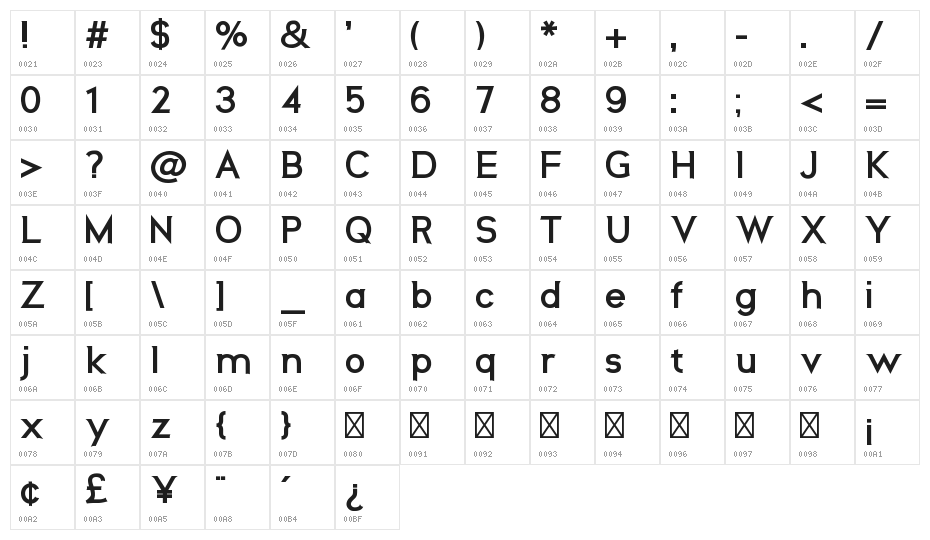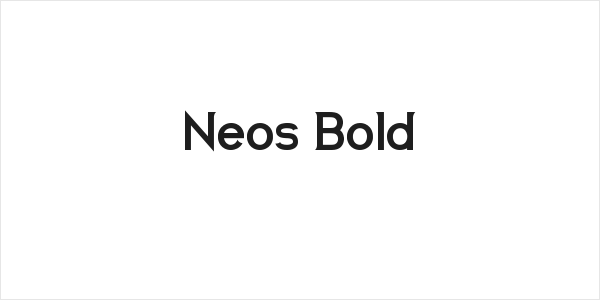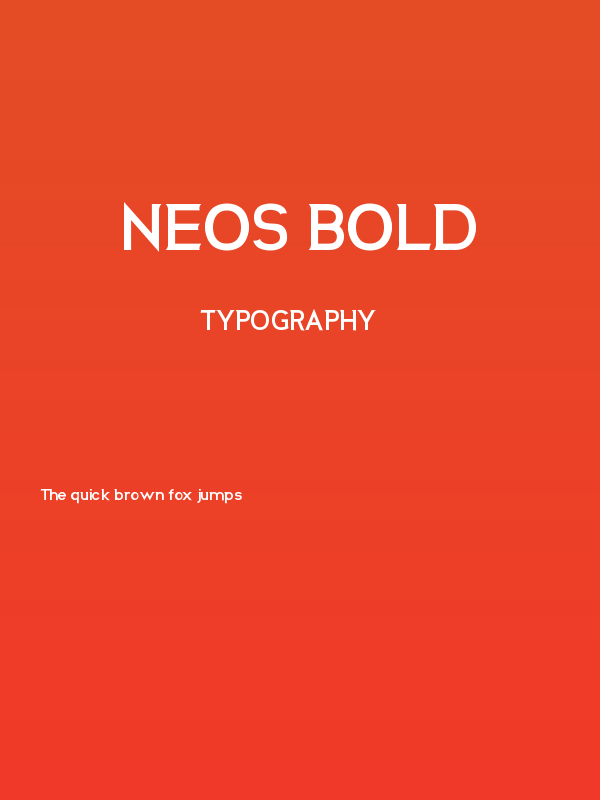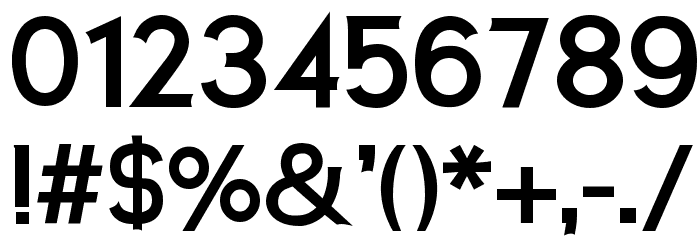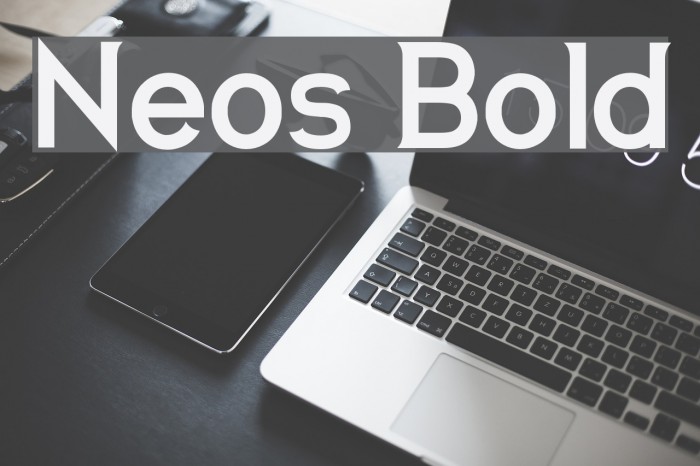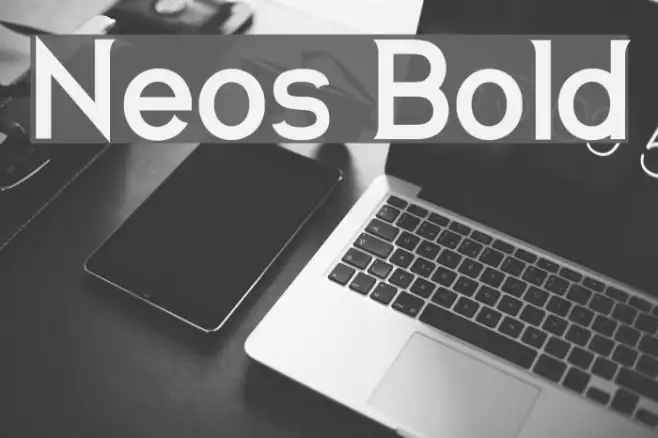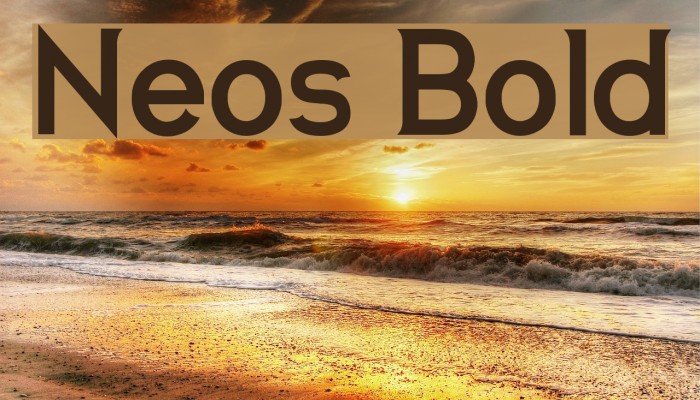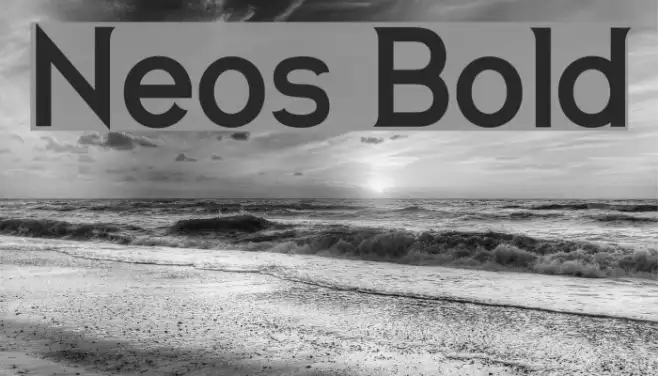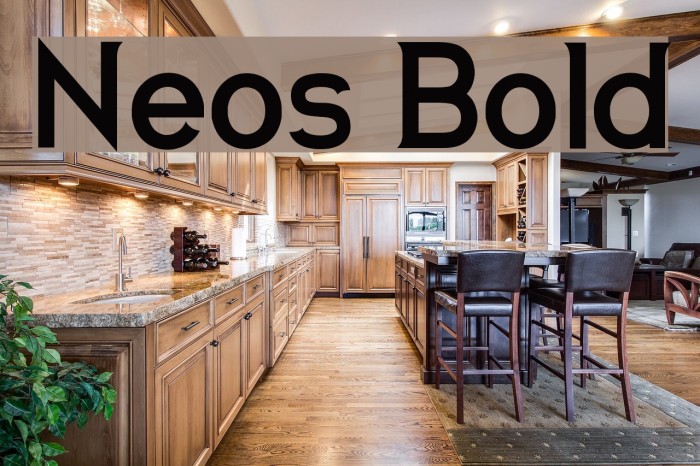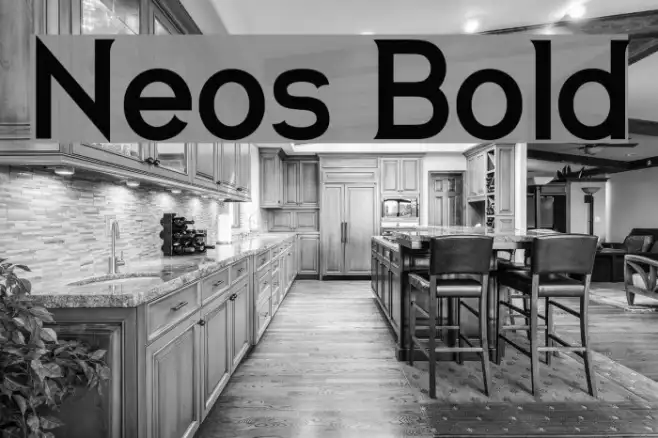
Neos Bold Font
Neos Bold Description
This font features a bold and modern sans-serif style with clean, geometric lines and a strong presence. The uppercase letters are uniform in height, providing a sense of stability and balance. The lowercase letters maintain a consistent x-height, ensuring readability. Numbers are clear and distinct, making them suitable for various applications. Special characters are well-defined, adding versatility to the font's use. The overall design is sleek and contemporary, ideal for projects that require a bold statement.
| Use Case | Headlines, Logos, Advertising |
| Proposed Projects | Ideal for branding, headlines, advertising, and digital media where a strong, modern look is desired. |